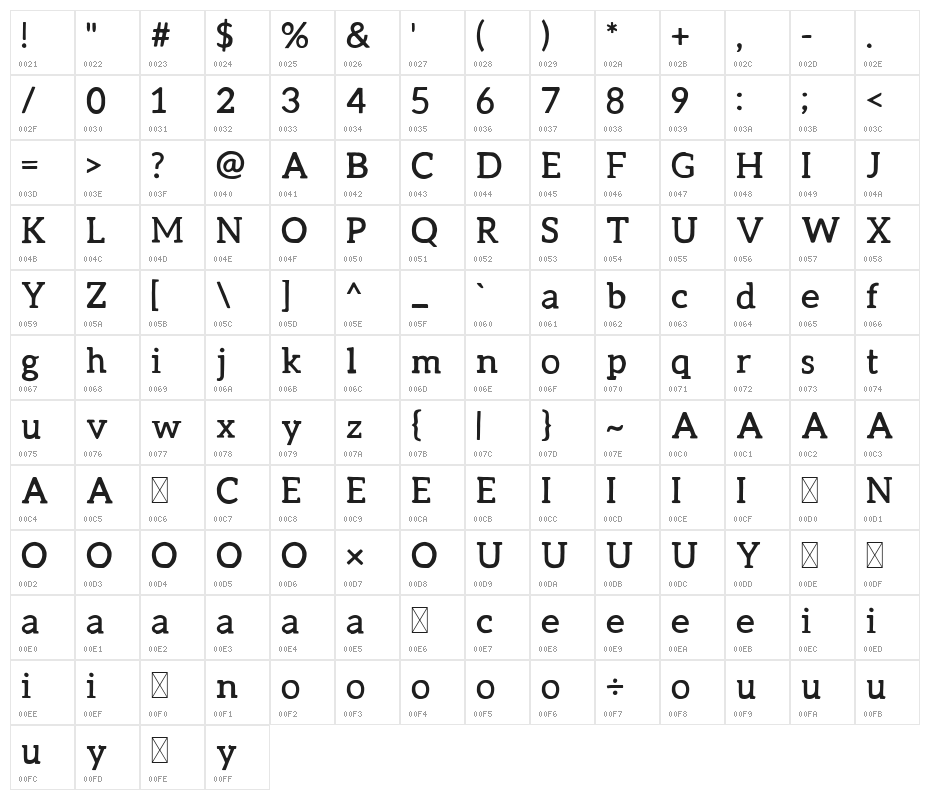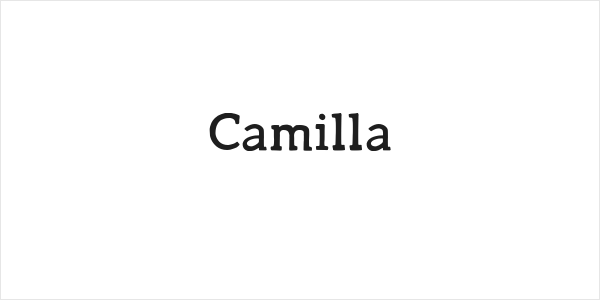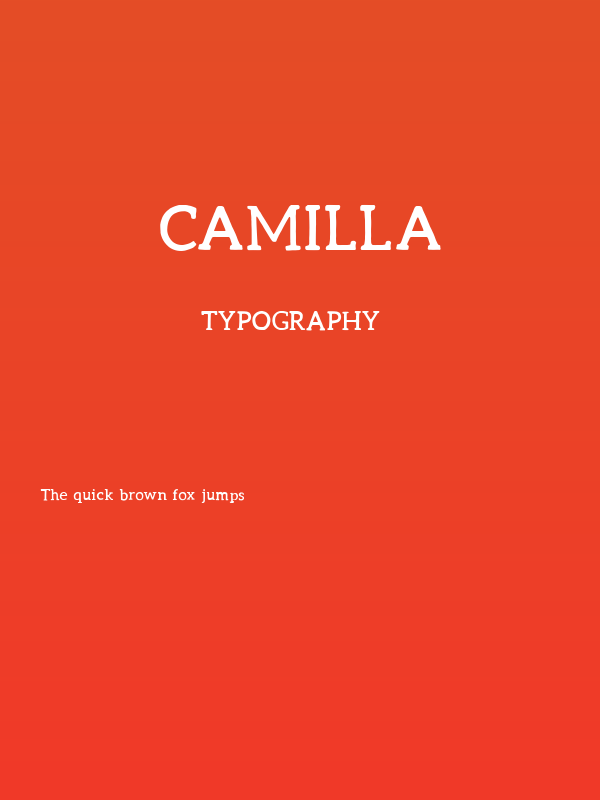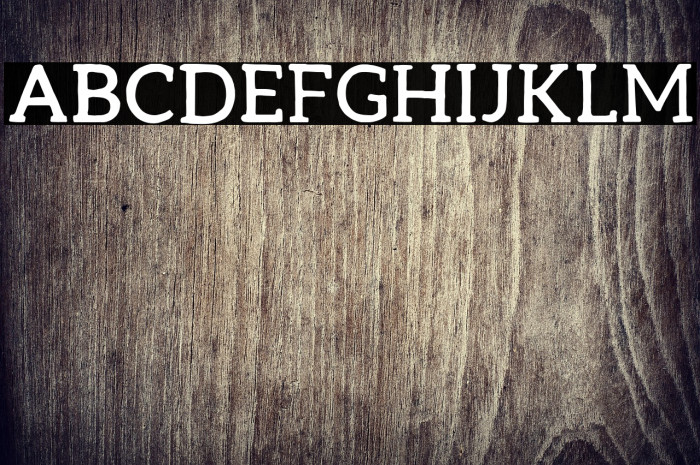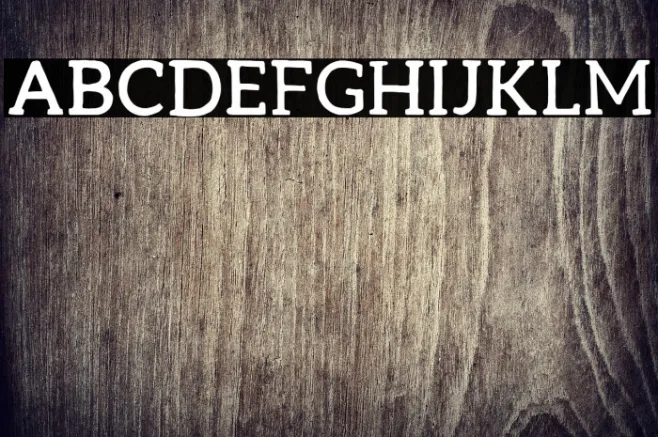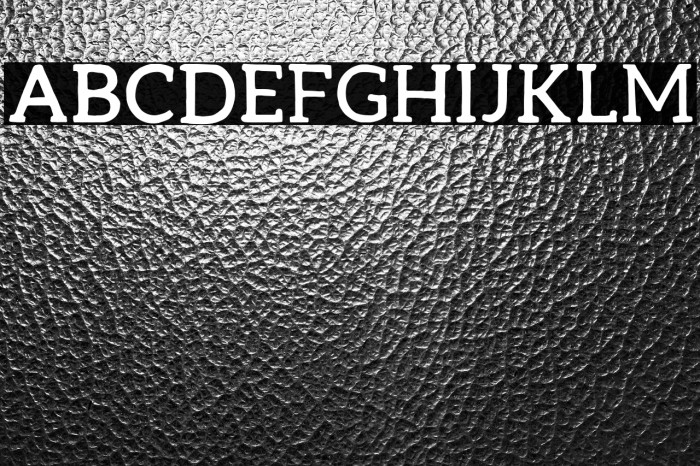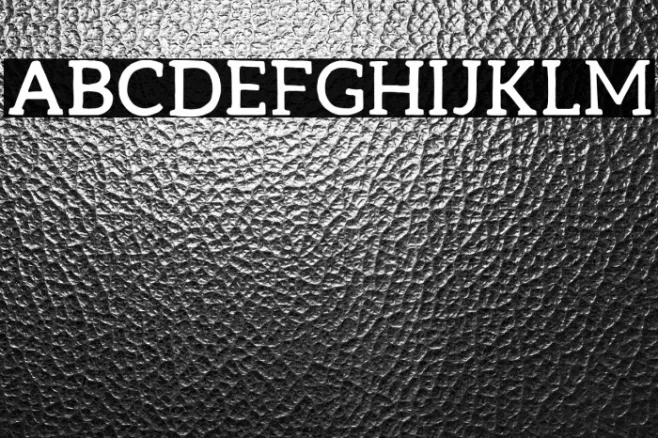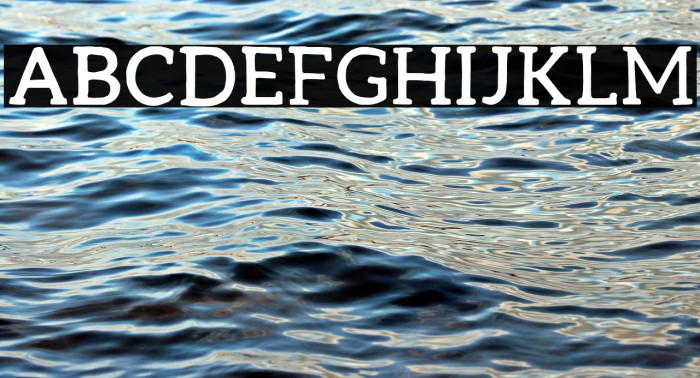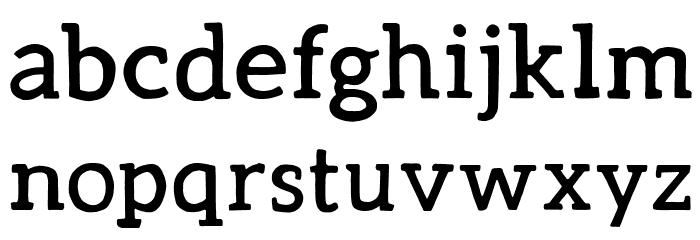
Camilla Font
Camilla Description
This font features a classic serif design with a slightly modern twist. The characters have a traditional serif structure, providing a sense of formality and elegance. The strokes are moderately thick, giving the font a solid and substantial appearance. The serifs are well-defined, adding to the readability and classic aesthetic. The font maintains a consistent weight throughout, ensuring uniformity across different characters. It is suitable for both digital and print media, offering versatility in various design projects. The numerals and special characters are designed to complement the alphabet, maintaining the overall style and readability.
| Proposed Projects | Ideal for editorial design, book covers, formal invitations, and branding projects requiring a classic touch. |